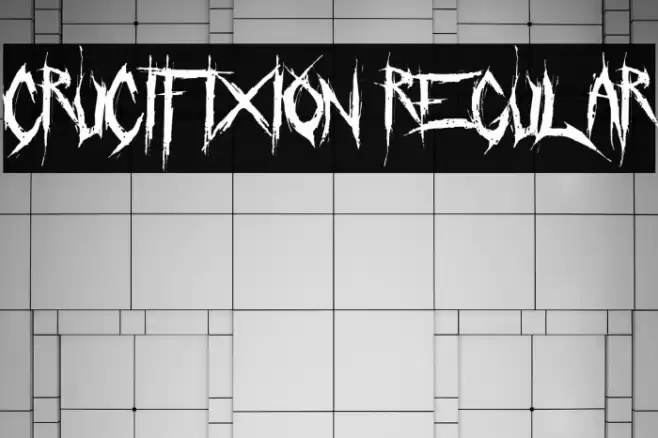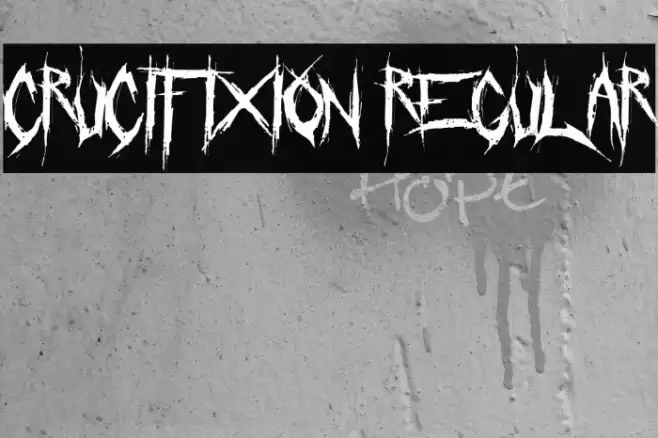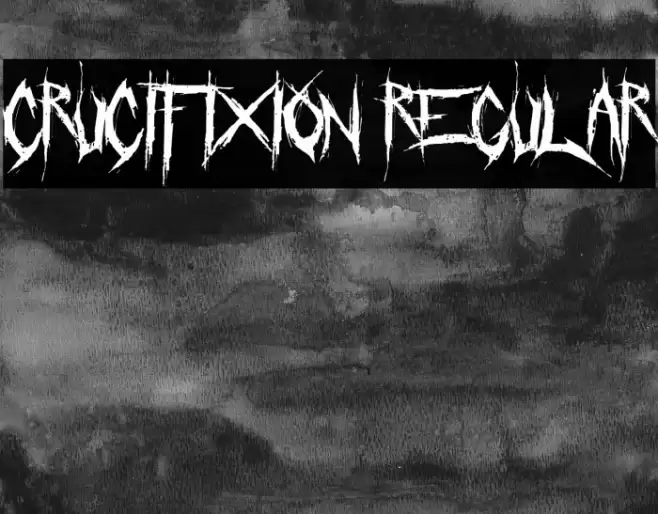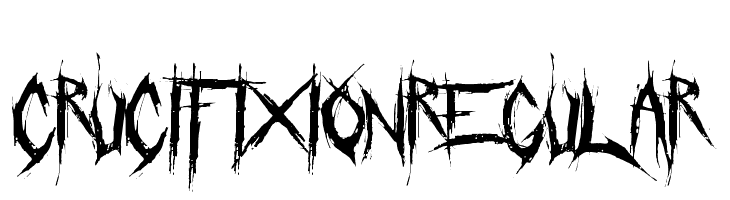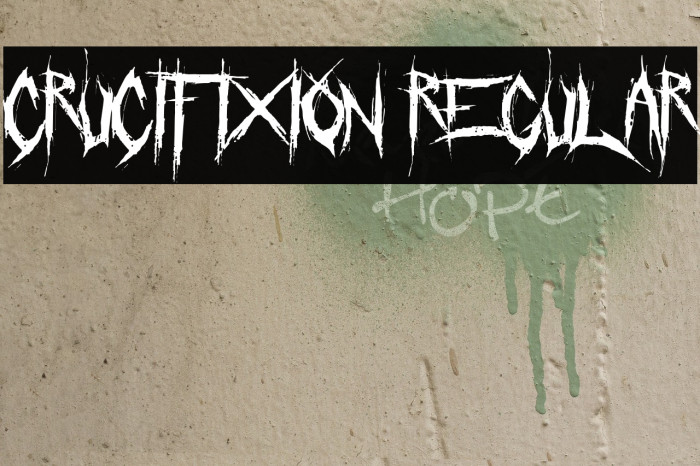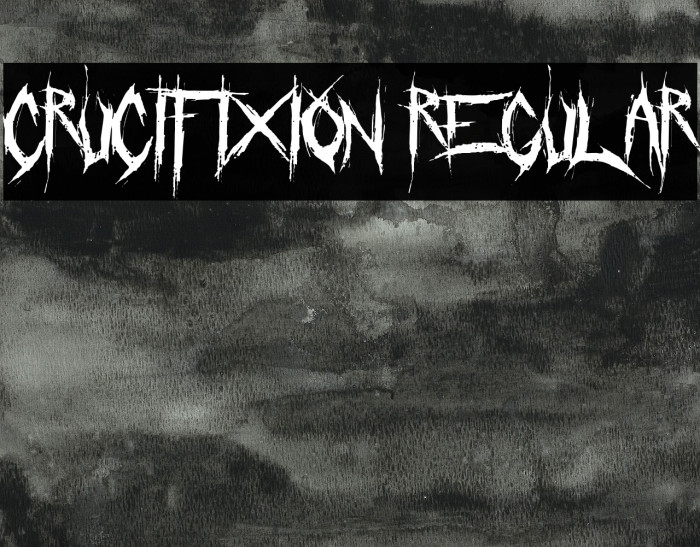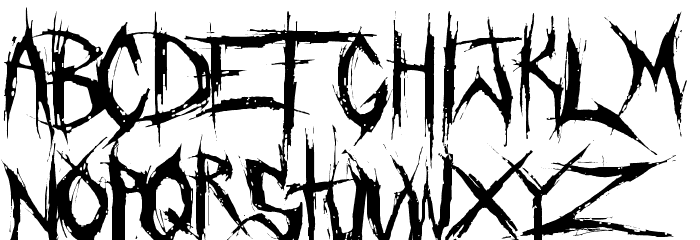
Crucifixion Regular Font
Crucifixion Regular Description
This font features a highly distressed and jagged appearance, reminiscent of sharp, thorny branches or shattered glass. The characters are irregular and chaotic, with uneven strokes that give a sense of raw energy and intensity. The uppercase and lowercase letters maintain a consistent style, emphasizing a rugged and rebellious aesthetic. The font's unique design makes it stand out, with each letter appearing as if it has been scratched or carved with a sharp object. This style is particularly effective for creating a dramatic and edgy visual impact.
A distressed, jagged font with a chaotic and rebellious style from Uncategorized fonts.
- Proposed Projects: Ideal for horror-themed posters, album covers, or any project requiring a dramatic and edgy aesthetic.